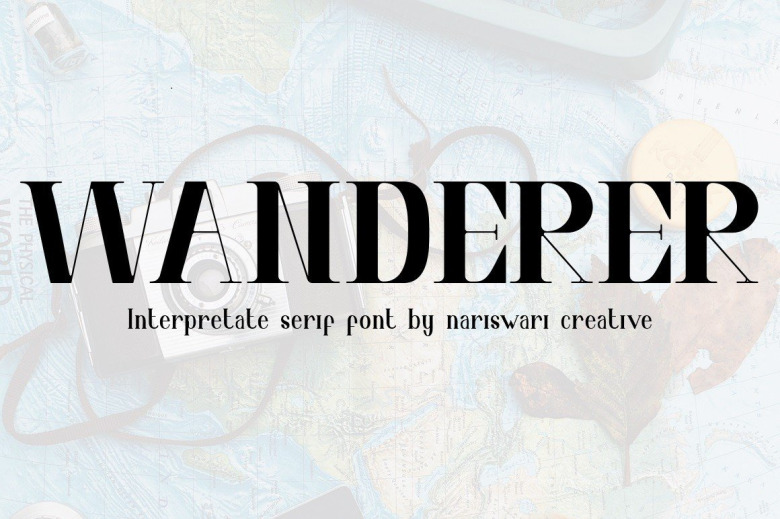
Interpretate Four Font
Interpretate Foue is a bold and authentic serif font. This original look will appeal to a wide range of crafty ideas, from letterheads and titles, to stationery.